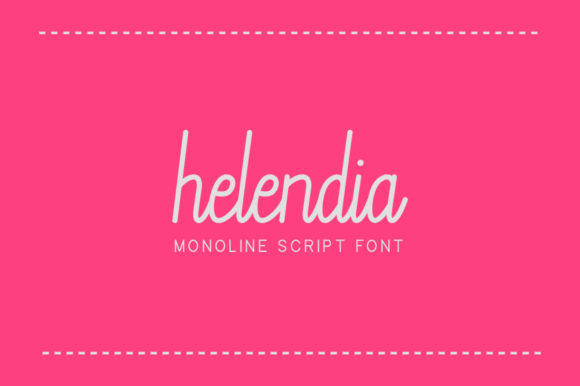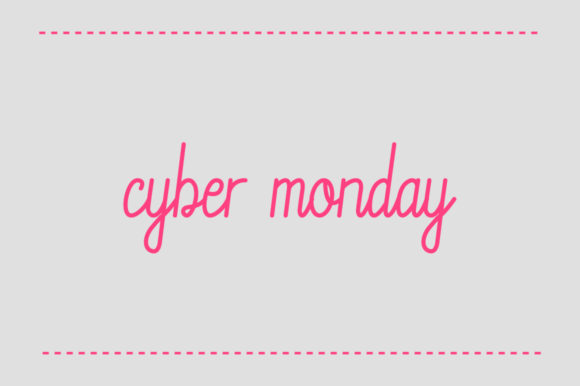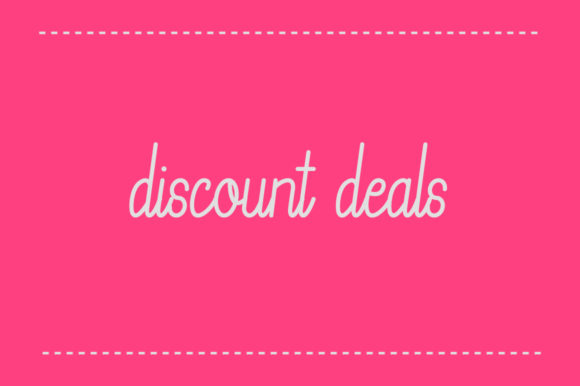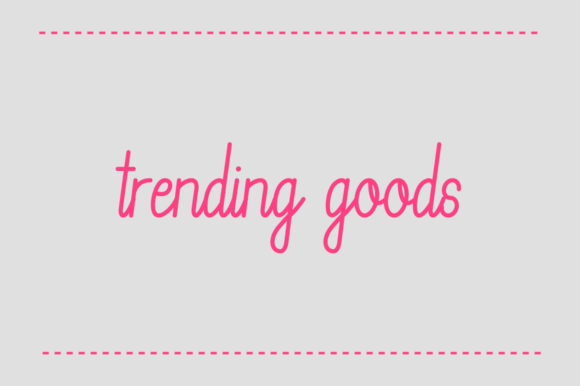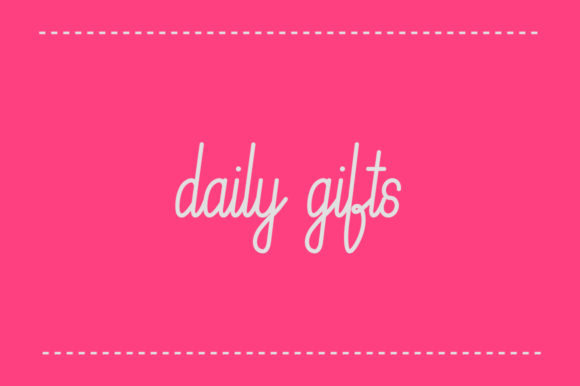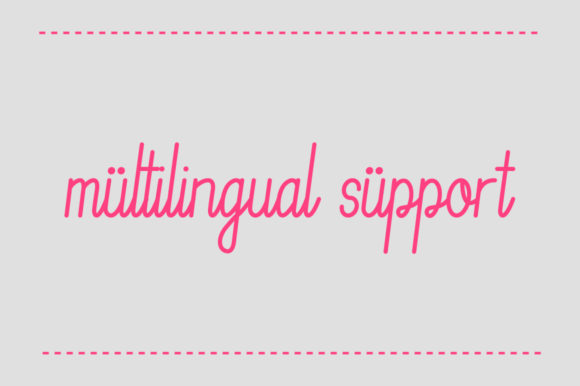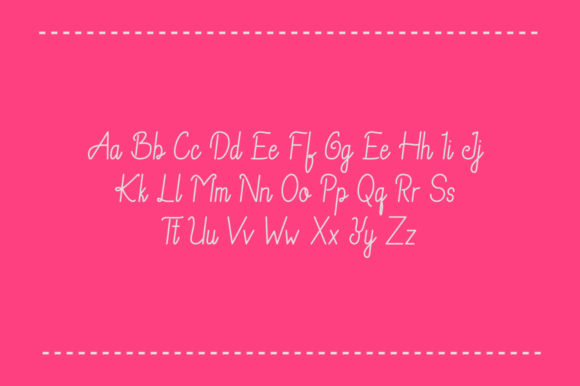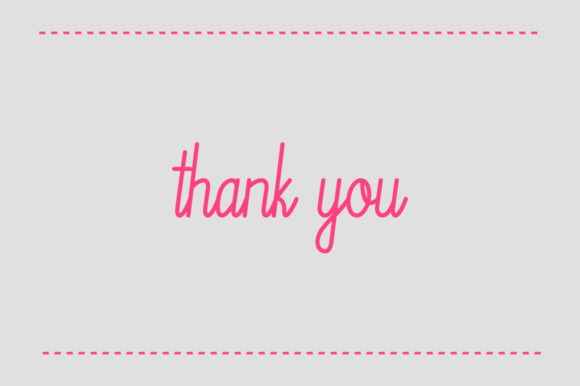
HomeScript FontsHelendia Font Script Fonts Helendia Font FacebookXPinterestWhatsApp Helendia Font Poster 2 Helendia Font Poster 3 Helendia Font Poster 4 Helendia Font Poster 5 Helendia Font Poster 6 Helendia Font Poster 7 Helendia Font Poster 8 About Helendia Font Helendia is a smooth and lovely round font. It is perfectly suited for a wide variety of projects! DOWNLOAD ON CREATIVE FABRICAThis font is sold and delivered by Creative Fabrica. Font Canyon may earn a commission if you buy through this link. People also explored Chalk Marks Font Beatbox Font Great Smart Font Brushwell Font One Day Lf Font Alpa Renote Font Wildflower Font Tropical Font Babyshark Font 307 0 TagsHelendia Font Previous articleOaklash FontNext articleBlittar Rain Font LEAVE A REPLY Cancel reply Comment: Please enter your comment! Name:* Please enter your name here Email:* You have entered an incorrect email address! Please enter your email address here Website: Save my name, email, and website in this browser for the next time I comment. Personal Use Free Kaylafiz Personal Use Free Read more about this font Good Mood Personal Use Free Read more about this font Beautiful Personal Use Free Read more about this font Sunflower Personal Use Free Read more about this font BLOG To increase your work productivity, choose the most readable fonts. In today's fast-paced work environment, where digital communication and information consumption are integral to our daily routines, the choice of fonts can significantly impact... The 10 Best Handwriting Fonts to Add Personality to Your Designs Top 10 Handwritten Fonts That Elevate Your Designs Using Fonts in Digital Marketing: Tips to Strengthen Your Brand Identity